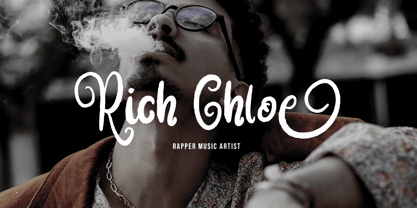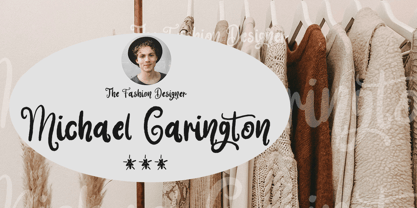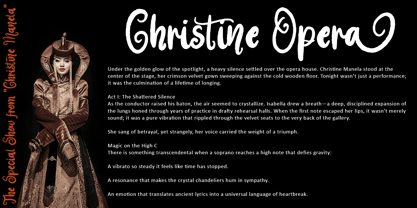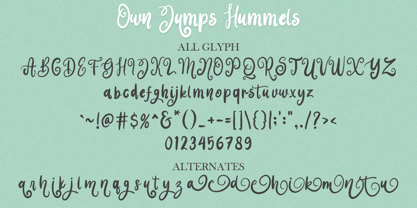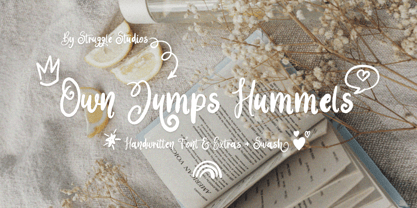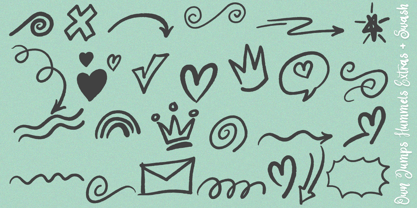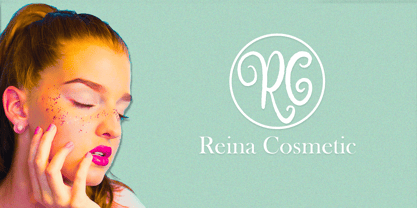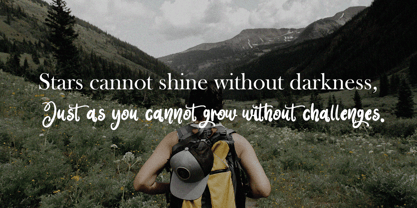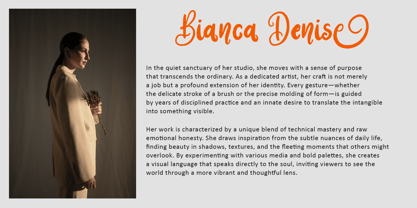
Own Jumps Hummels
by Struggle Studio
The Own Jumps Hummels Font Family was designed by Andri Kurniawan and published by Struggle Studio. Own Jumps Hummels contains 2 styles and family package options. More about this family
Own Jumps Hummels Infuse your designs with a touch of warmth and personality with Own Jumps Hummels. This font is a beautifully crafted handwritten script that captures the essence of casual elegance. With its flowing lines and authentic "pen-to-paper" feel, it’s the perfect choice for creators looking to add a human, heartfelt touch to their work. Perfect For: Branding & Identity: Create logos that feel approachable, artisanal, and unique. Social Media: Eye-catching Instagram quotes, Pinterest graphics, and YouTube thumbnails. Packaging Design: Ideal for organic beauty products, handmade snacks, or boutique labels. Stationery & Gifts: Beautiful for wedding invitations, greeting cards, planners, and stickers.
Designers: Andri Kurniawan
Foundry: Struggle Studio